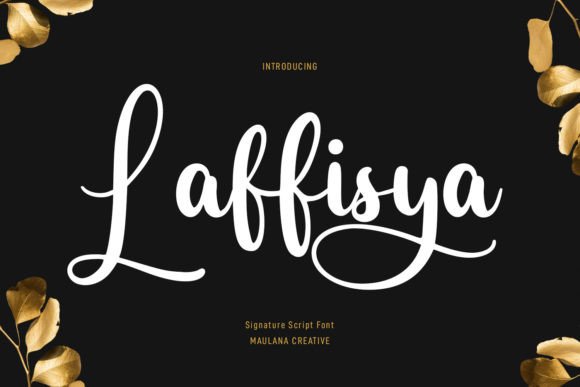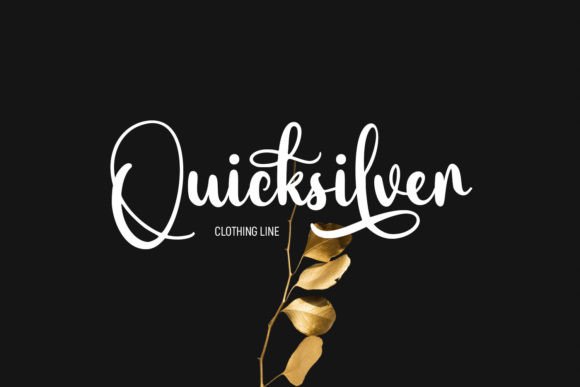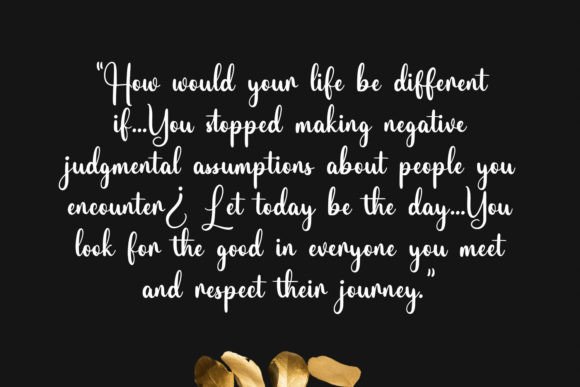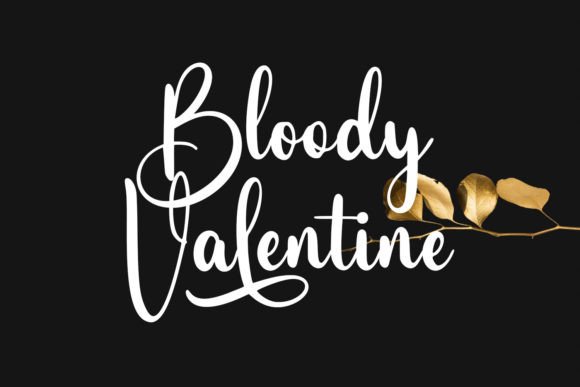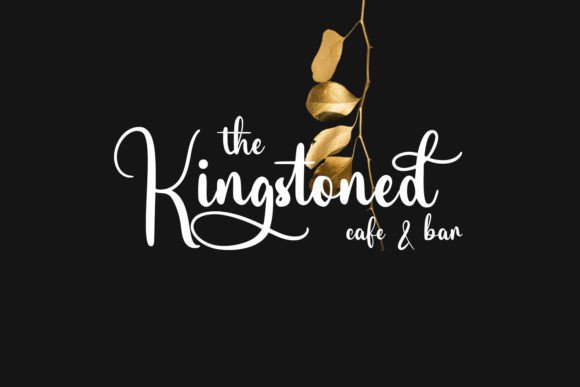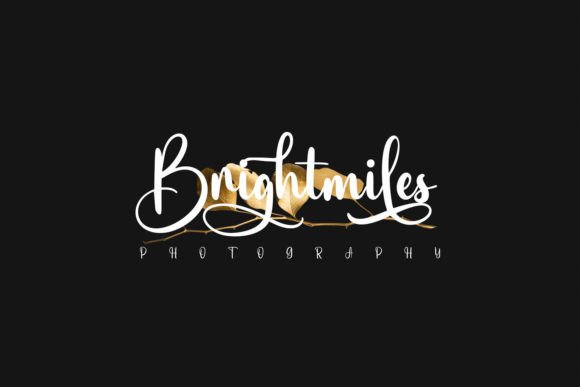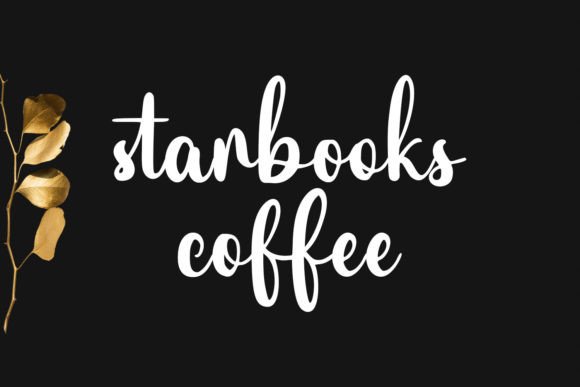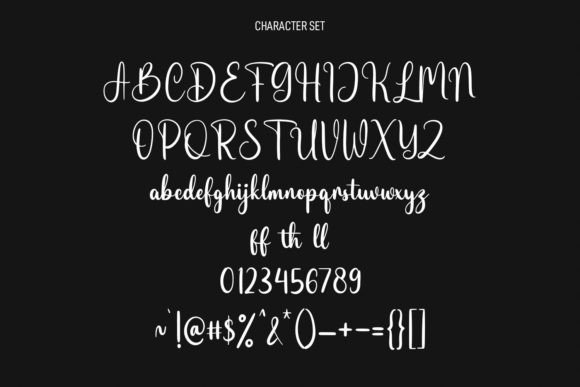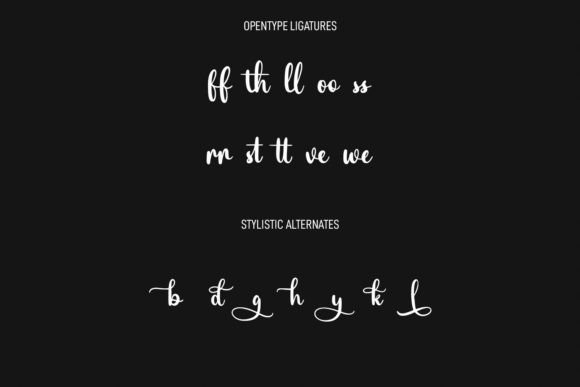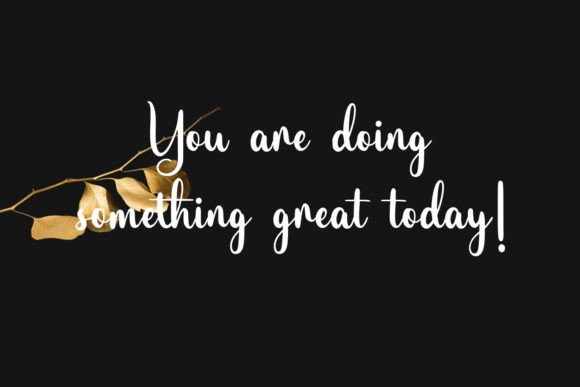
Laffisya Font
Introducing Laffisya, a flowing handwritten font characterized by an elegant touch, making it perfect for a variety of creative projects. Immerse yourself in its distinct and timeless style, and let it become a key element in creating spectacular designs.
The flowing and handwritten nature of Laffisya brings a sense of warmth and personal touch to your projects. This font is designed to be versatile, lending itself well to various design applications. Picture Laffisya on invitations, where it adds a touch of elegance and personalization to your event. Envision it in branding or logo designs, where its distinct style contributes to a unique and memorable identity.
The timeless style of Laffisya makes it suitable for a wide range of creative endeavors. Its flowing script offers a sense of continuity and grace, allowing it to seamlessly adapt to different design contexts. Whether used for print or digital media, Laffisya’s distinct and elegant touch brings sophistication to your creations.
Fall in love with Laffisya as it becomes an integral part of your design toolkit, enhancing your projects with its flowing and timeless style. Visualize it on packaging, where it adds a touch of sophistication to your product. Picture it on posters or social media graphics, where it conveys a sense of elegance and distinctiveness.
In conclusion, Laffisya is not just a font; it’s a flowing and elegant design asset that elevates your creative projects. Download it today and experience how it transforms your designs into expressions of timeless style and sophistication. Make Laffisya a cherished addition to your font collection, and let it be the key to unlocking a world of elegant charm in your designs!